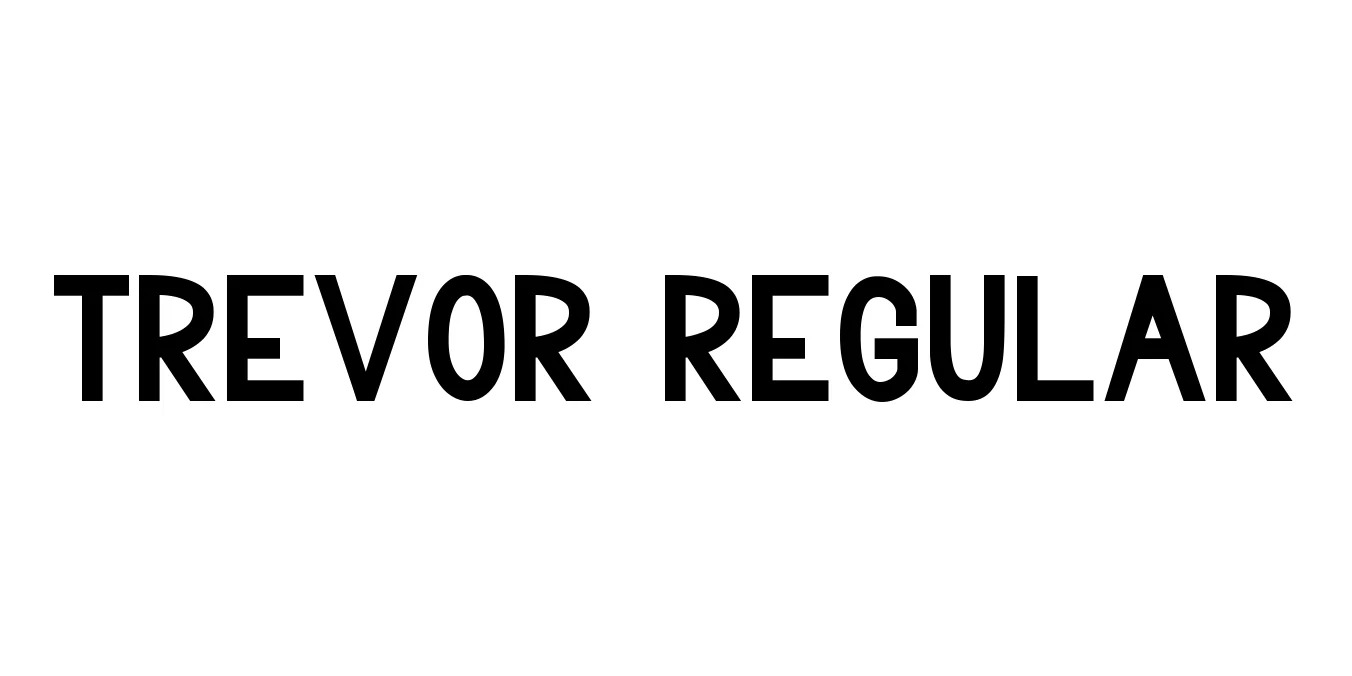
Trevor Regular
Designed by The Northern Block
| Font Name | Trevor |
| Category | Display Sans-Serif |
| Designer | The Northern Block |
| Similar Fonts | Montserrat, Futura, Gotham, Josefin Sans |
Trevor Regular is a contemporary display typeface characterized by its balanced proportions and distinct geometric influence. Developed to bridge the gap between industrial rigidity and modern elegance, this font features clean lines and a high degree of legibility that makes it a favorite among graphic designers. Its origins lie in the pursuit of a versatile typeface that can command attention without overwhelming the surrounding design elements, making it a staple for high-end editorial work and visual storytelling.
The technical architecture of Trevor Regular allows it to function seamlessly across both digital and print media. With meticulously crafted kerning and a robust set of glyphs, it offers a professional finish to any project, ranging from corporate identity systems to independent art publications. Whether utilized for bold signage or sophisticated web interfaces, the font maintains its structural integrity across various scales, ensuring that the design remains clear and impactful in diverse environments.
Trevor Regular Best Uses
Excellent for creating memorable logos and cohesive visual identities.
Perfect for high-impact titles in magazines, posters, and advertisements.
Ideal for bold, highly readable text on digital platforms and mobile apps.